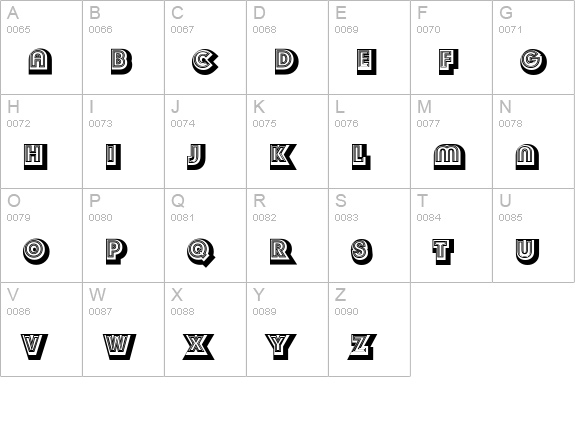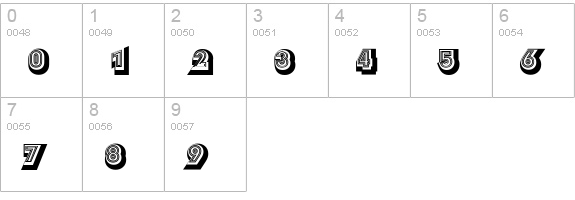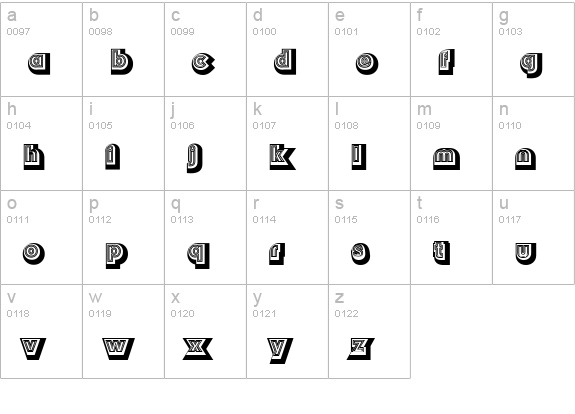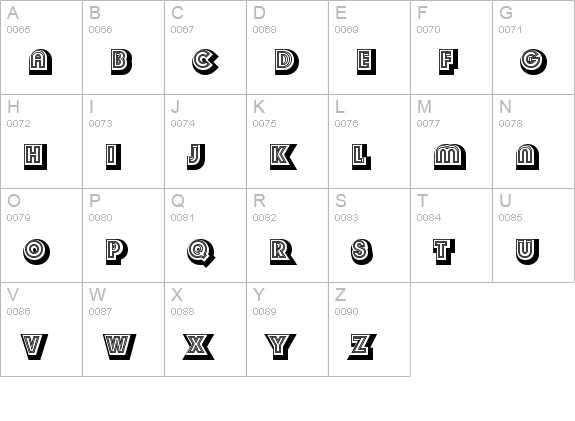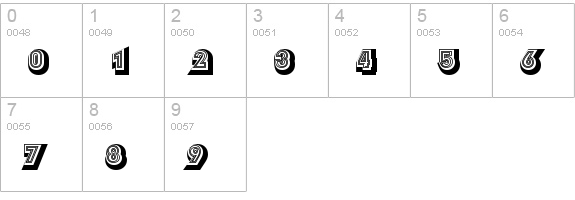
Soul Mama Font Details
Introducing Soul Mama, a beautifully crafted font that effortlessly captures the essence of soulful vibes and a touch of vintage nostalgia. This font is a true tribute to the artistic spirit, exuding warmth, creativity, and a unique sense of authenticity. Soul Mama presents a harmonious blend of boldness and elegance, with its carefully designed letterforms that dance gracefully across the page. Each character is imbued with a sense of soul, bringing life and personality to every word you write. Its smooth curves and flowing lines create a mesmerizing rhythm, making it a perfect choice for various creative projects. Whether you're designing a logo, crafting a greeting card, or simply adding a touch of whimsy to your personal creations, Soul Mama is the font that will effortlessly elevate your work. Its versatility allows it to shine in both digital and print mediums, making it a must-have for graphic designers, artists, and crafters alike. And the best part? Soul Mama is absolutely free! That's right, this beautiful font is freely available to download at FontsMarket.com, allowing you to unleash your creativity without any barriers. With just a few clicks, you can access this treasure trove of artistic inspiration and bring your visions to life. So, why wait? Embrace the soulful charm of Soul Mama and let its free-spirited nature inspire you to create something truly extraordinary. Download Soul Mama today from FontsMarket.com and embark on a journey of artistic expression like never before.